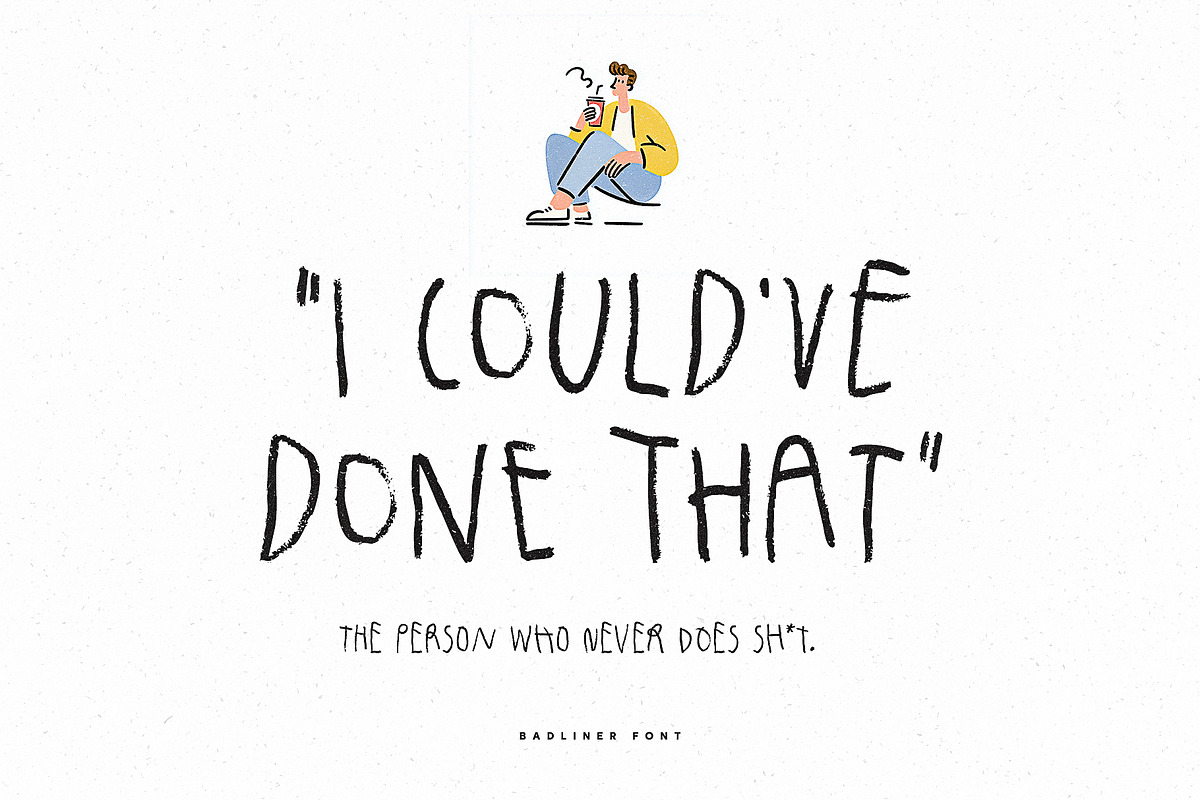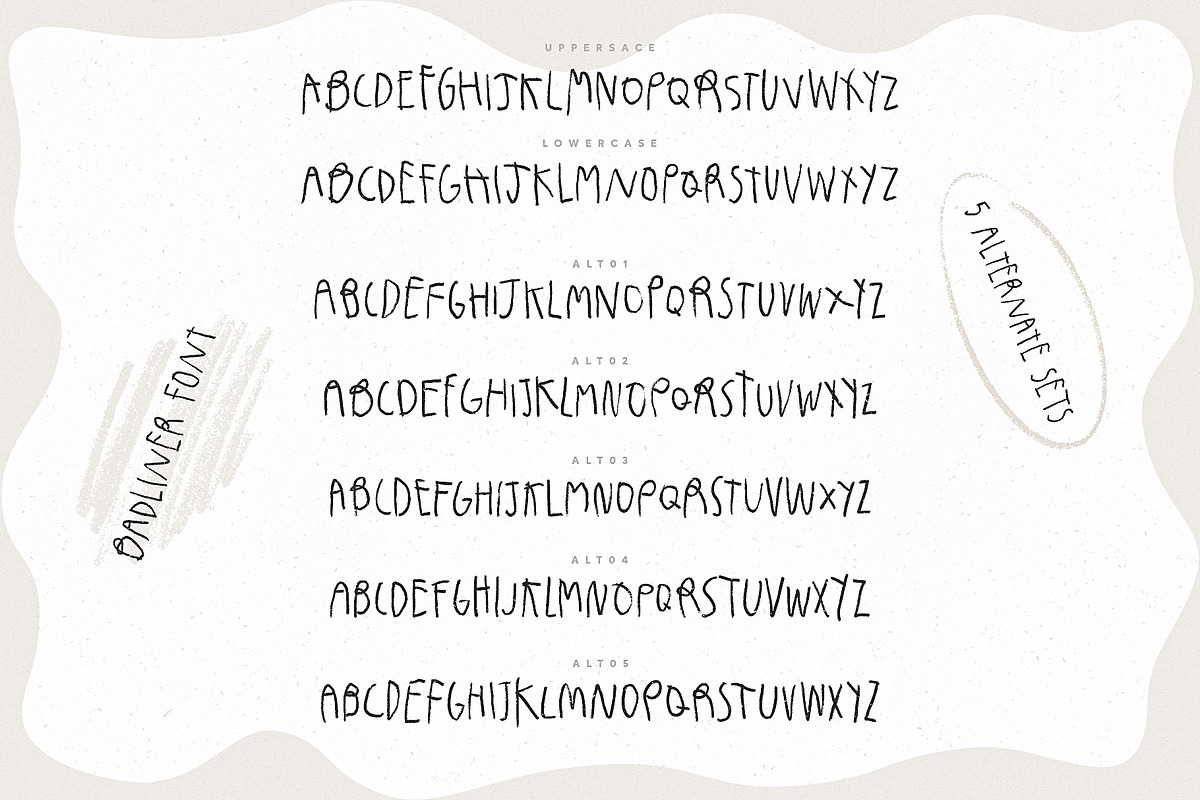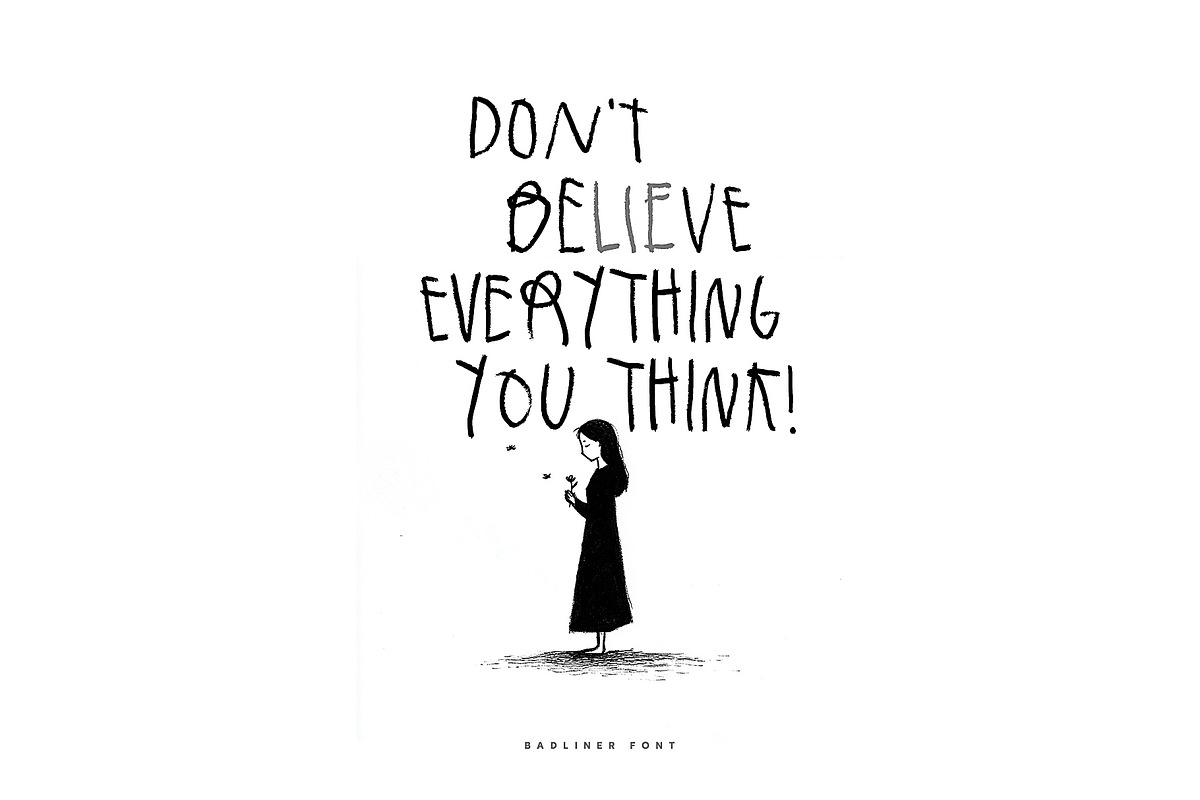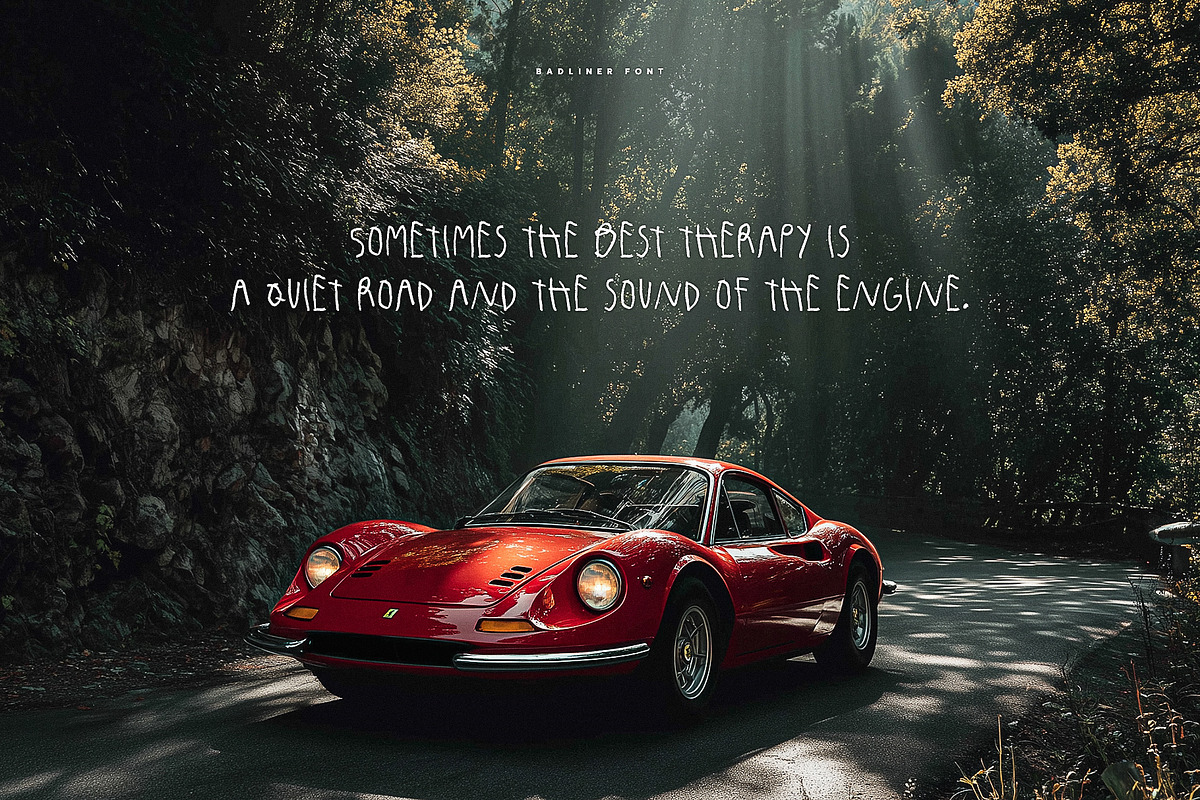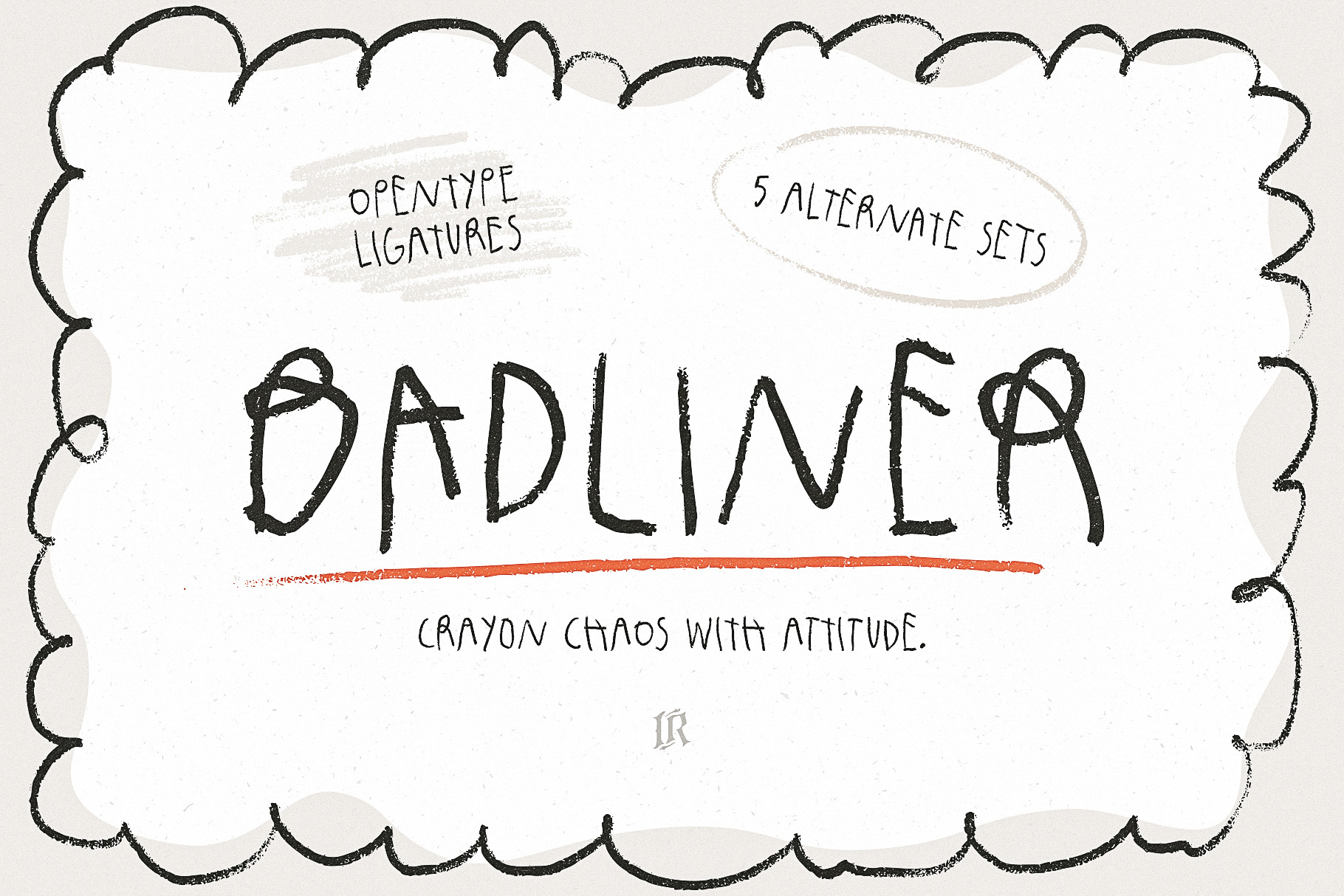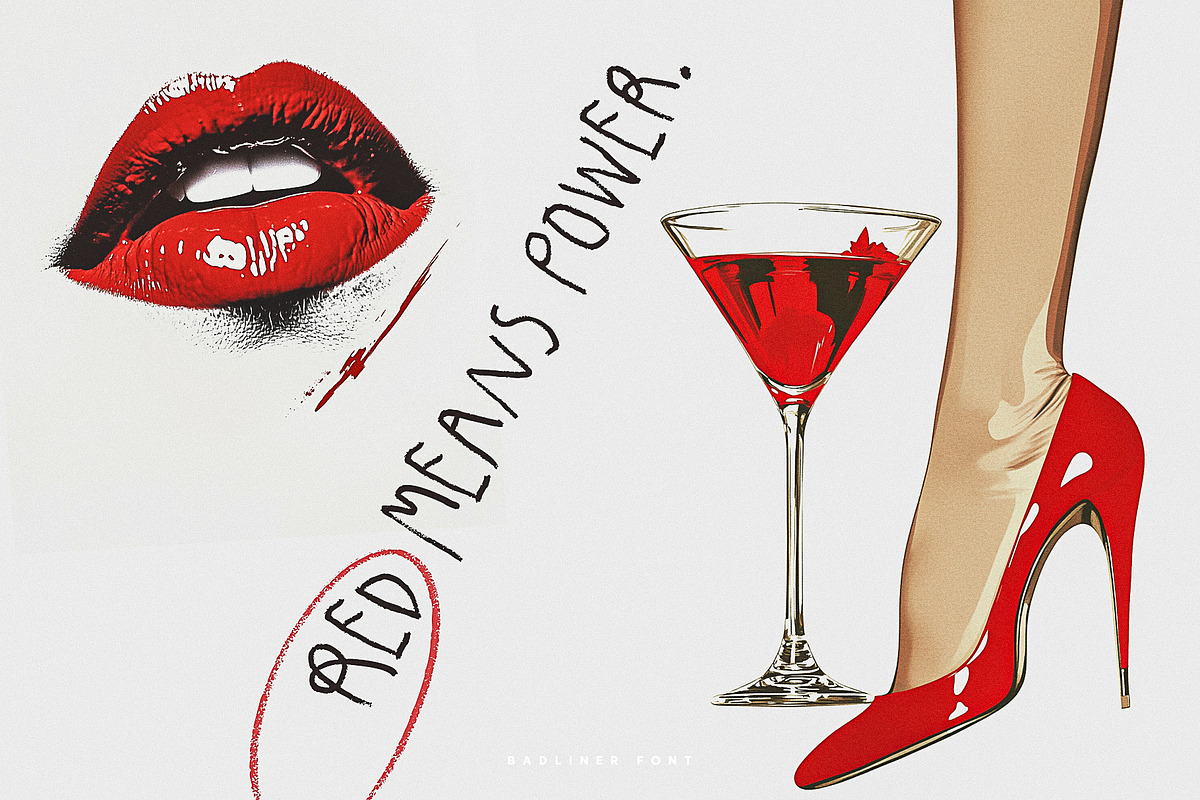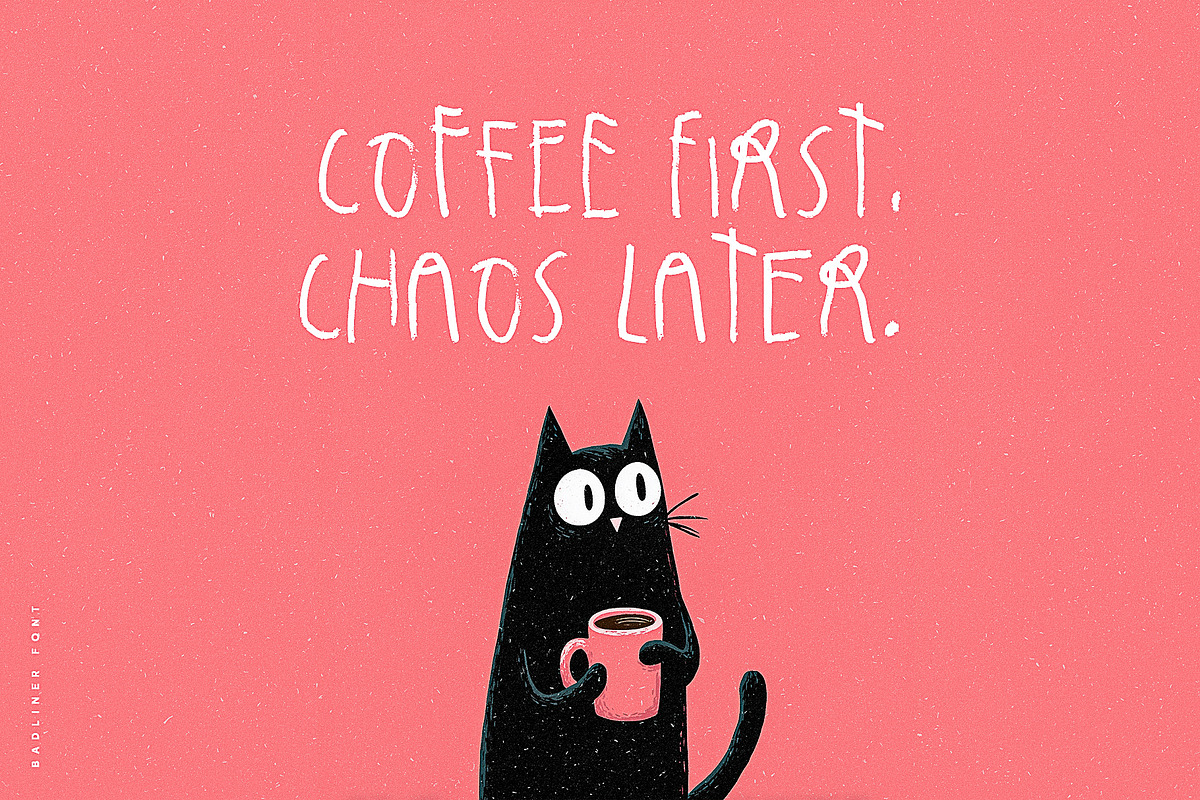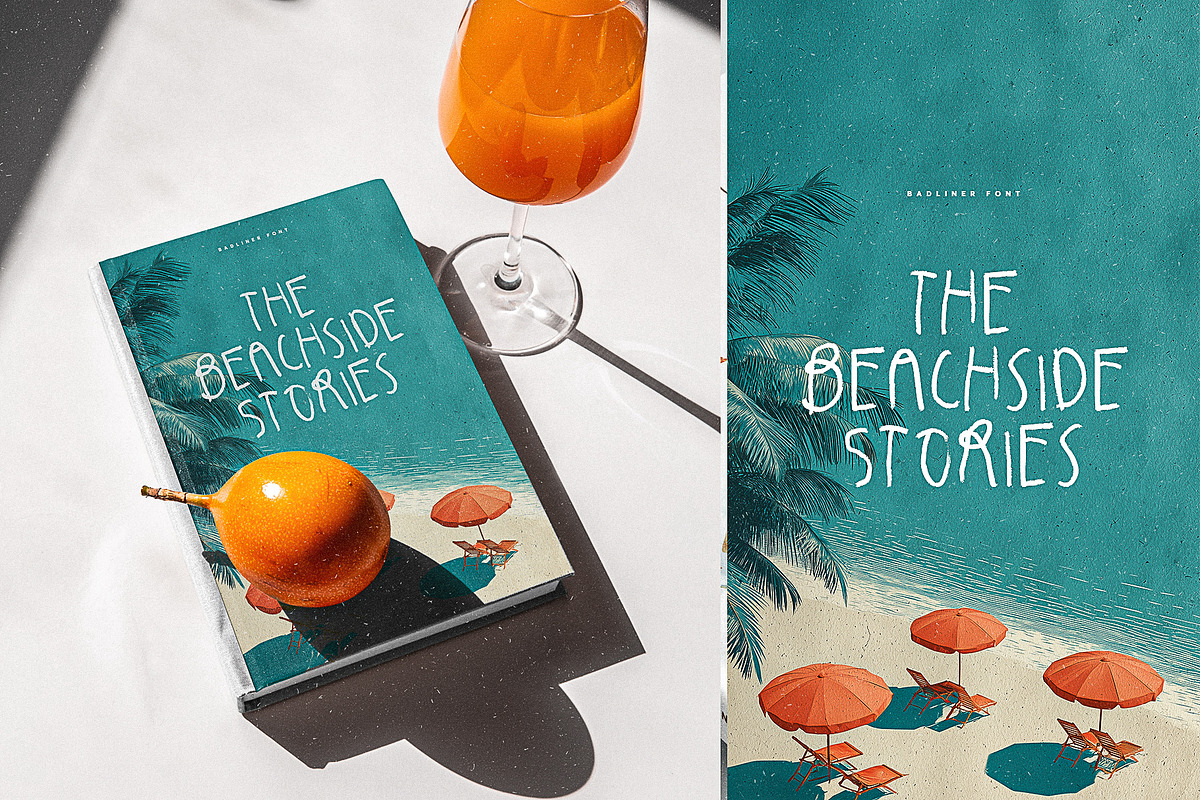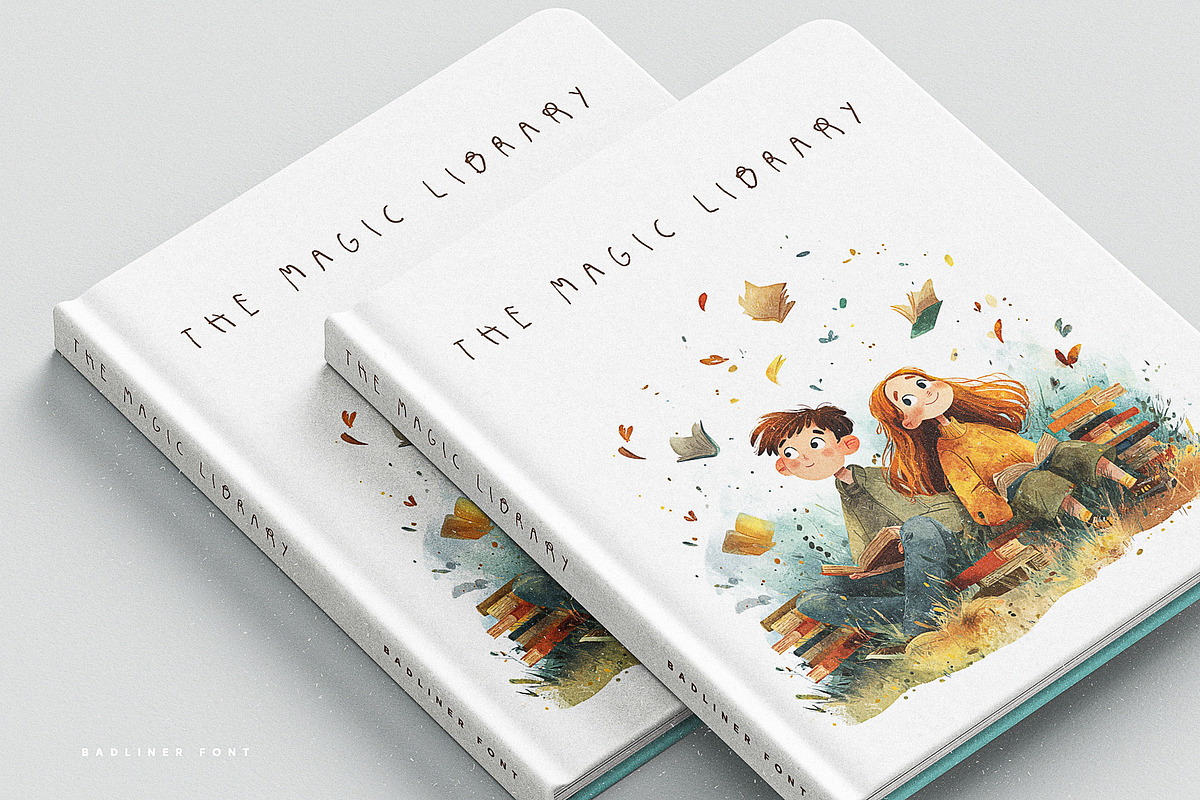
Badliner – Crayon Font
Bring a touch of playful chaos to your designs with Badliner, a hand-drawn crayon font that perfectly balances rough character with readability. Its slightly messy yet highly legible style makes it a versatile choice for quotes, headers, posters, packaging, social media graphics, or even longer text blocks that need personality.
Badliner comes with 6 alternate sets for lowercase letters – giving you endless variation and a truly authentic hand-drawn feel. Each alternate set is provided as a separate installable font file, so you can easily mix and match or use them individually depending on your project.
✨ Features:
- Authentic crayon texture with a playful, chaotic edge
- Fully readable, even in longer texts
- Perfect for quotes, headlines, posters, branding, and more
- 6 alternate lowercase sets (each installable separately)
- OpenType ligatures included
Add a dose of crayon energy and attitude to your next project with Badliner.